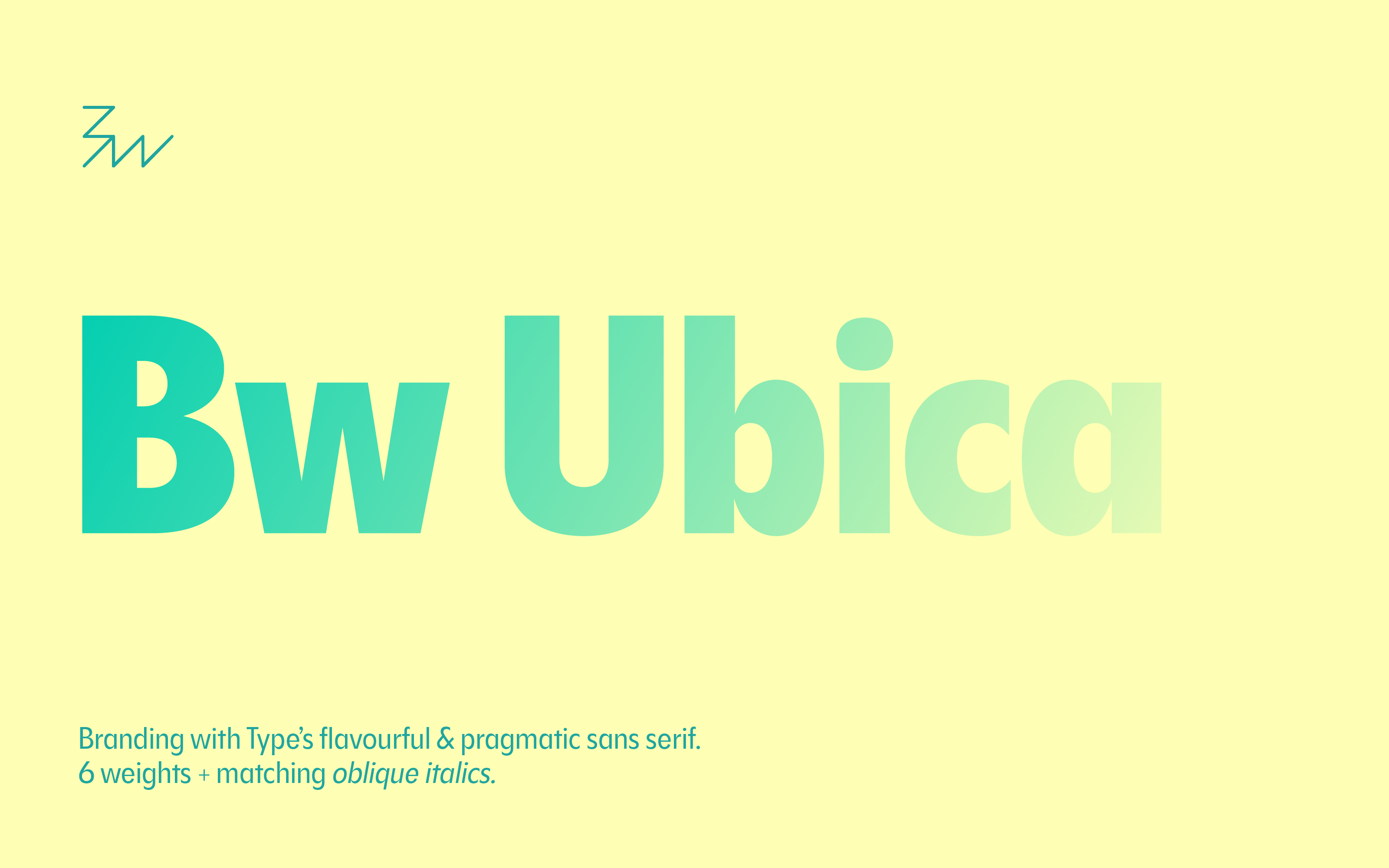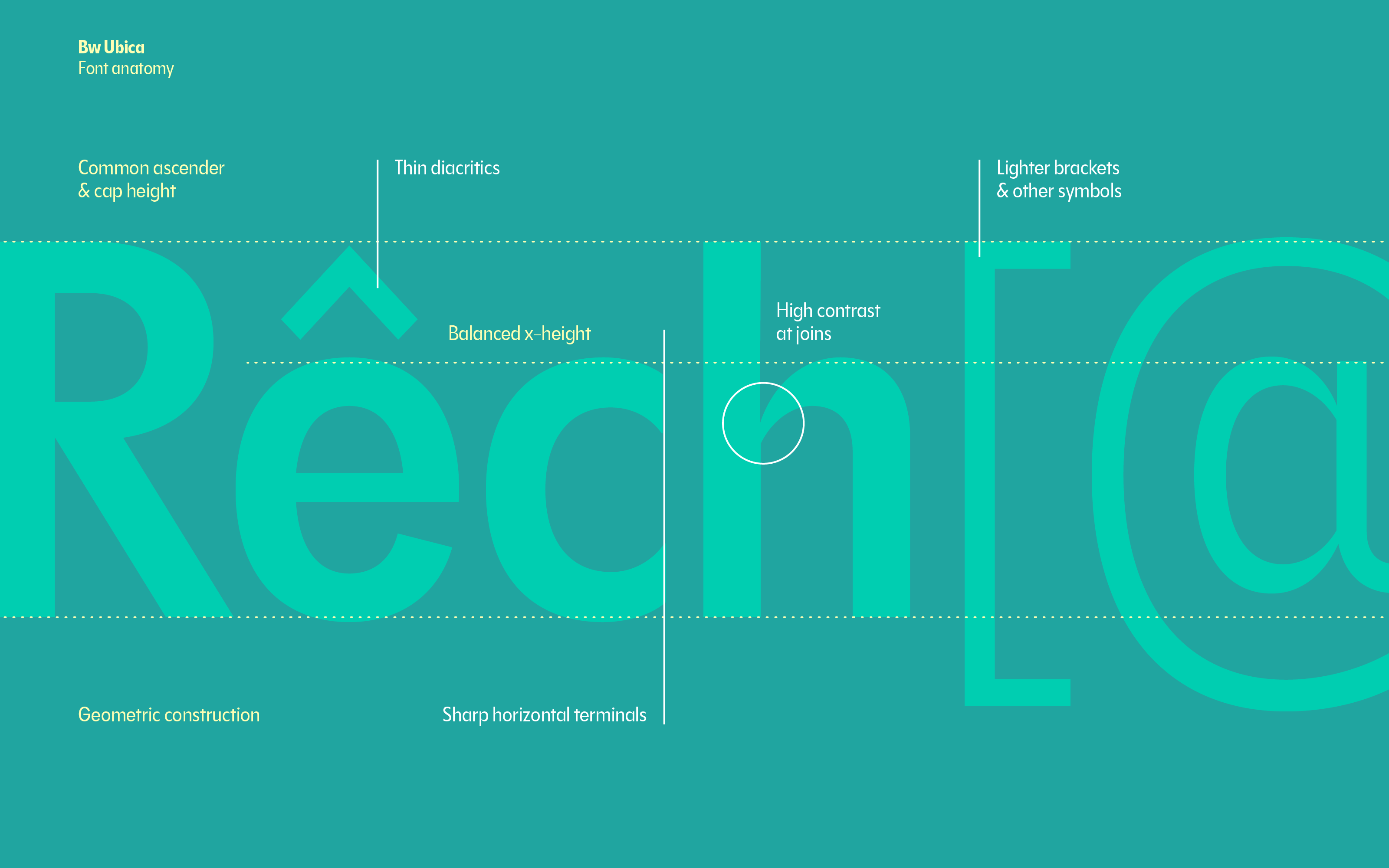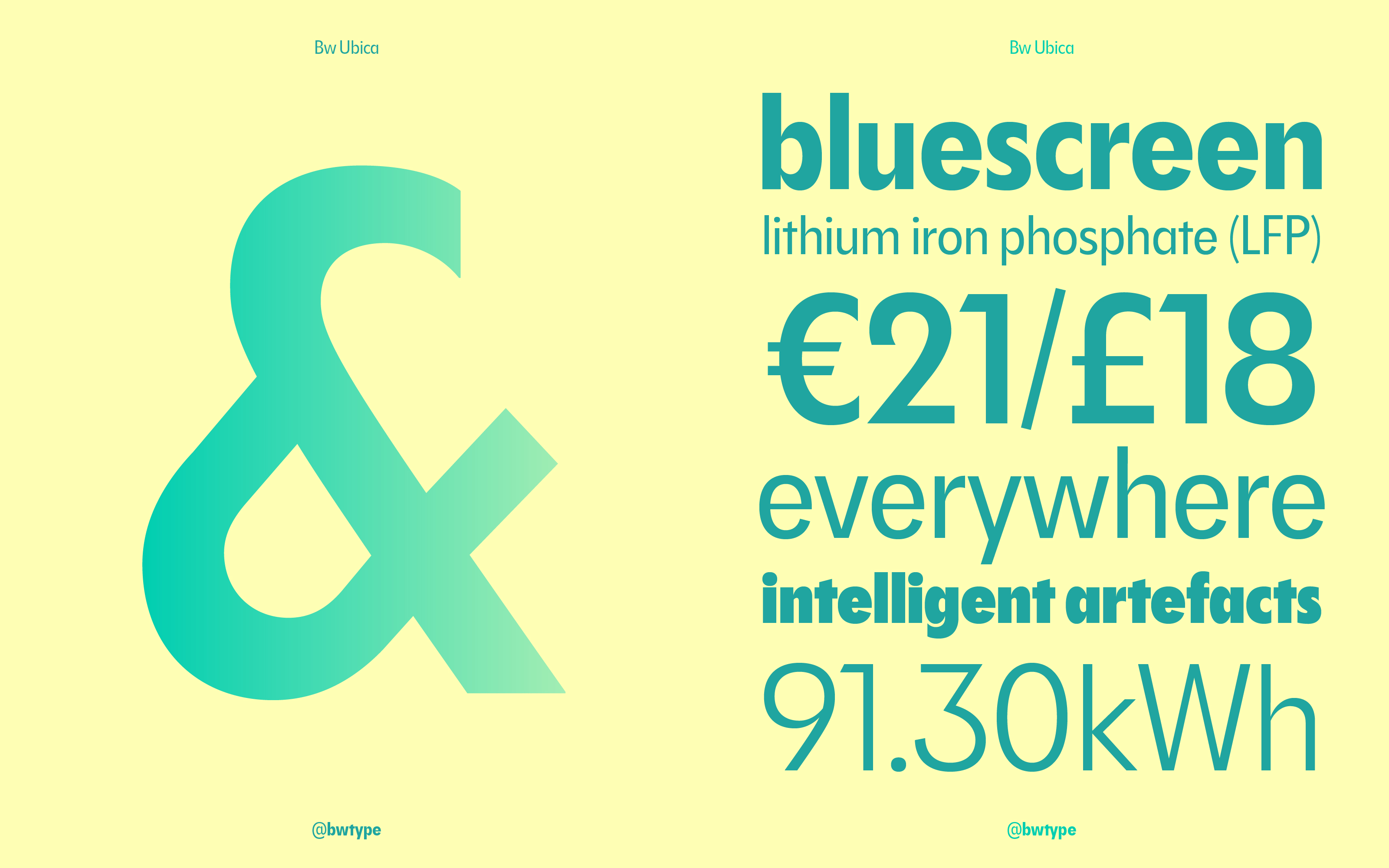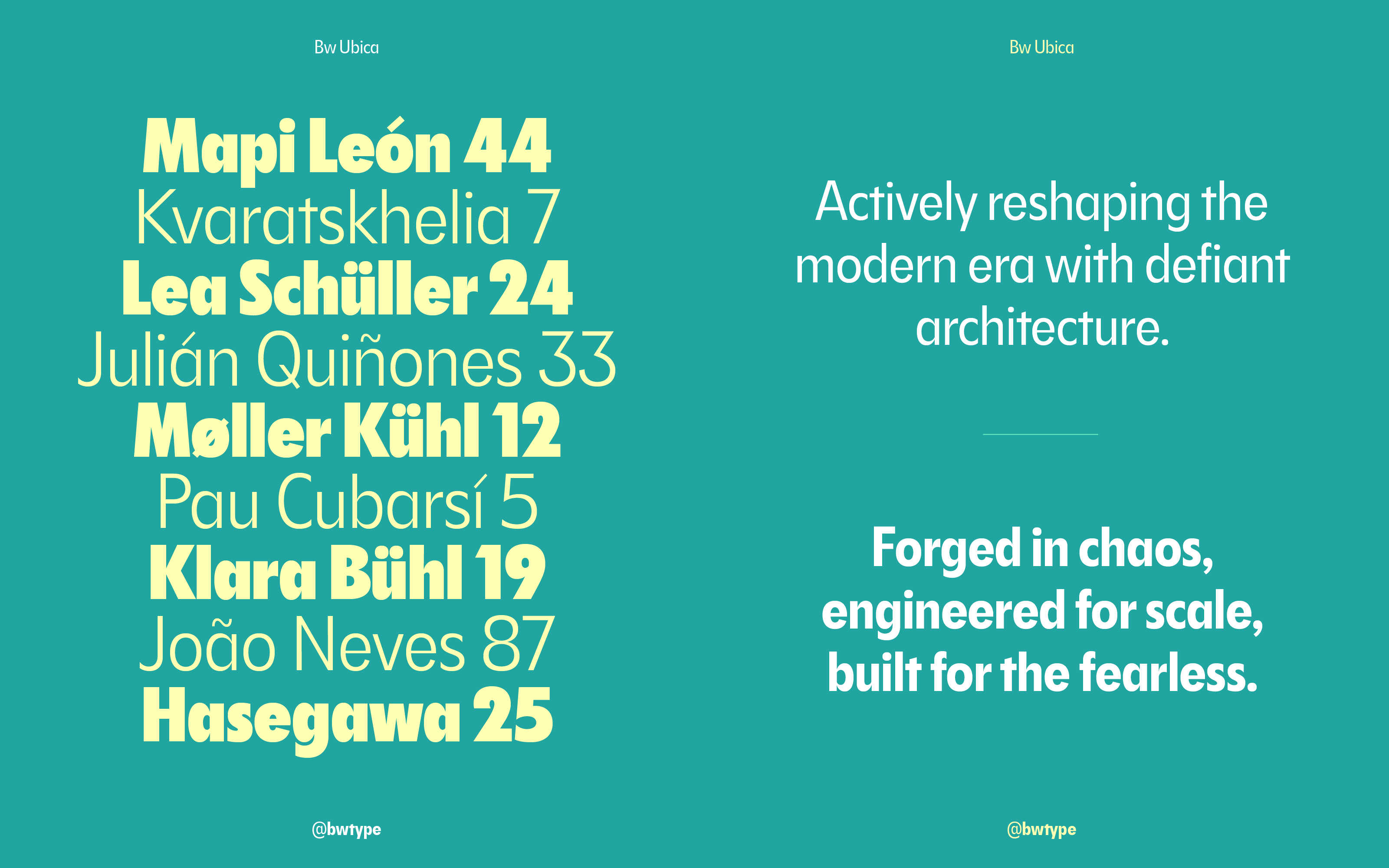
Introducing the Bw Ubica font family
Introducing Bw Ubica, a high-performance sans-serif font family designed to elevate the visual identity of contemporary brands. By flawlessly pairing timeless aesthetics with current graphic design needs, this versatile family provides the clean, authoritative edge required by digital-first platforms and forward-thinking consumer products alike.
Built for today, Bw Ubica transitions effortlessly between physical product packaging and dynamic digital applications. Its sharp geometry and balanced anatomy guarantee maximum impact, whether anchored on a minimalist tech box or a sprawling out-of-home advertising campaign.
Available in twelve versatile styles —6 weights from an elegant Light to a commanding Black with matching oblique italics— Bw Ubica gives brands a unified voice across editorial layouts, user interfaces, and physical product sleeves. Its balanced x-height and slightly condensed proportions are optimised for high legibility without losing a single hint of its character.
From typographic headlines to the finest technical print, Bw Ubica delivers the distinct character and structural flexibility that contemporary brands demand.
Designed by Alberto Romanos, Bw Ubica supports all European Latin languages and includes OpenType features like stylistic alternates, ligatures, and case-sensitive forms among others.